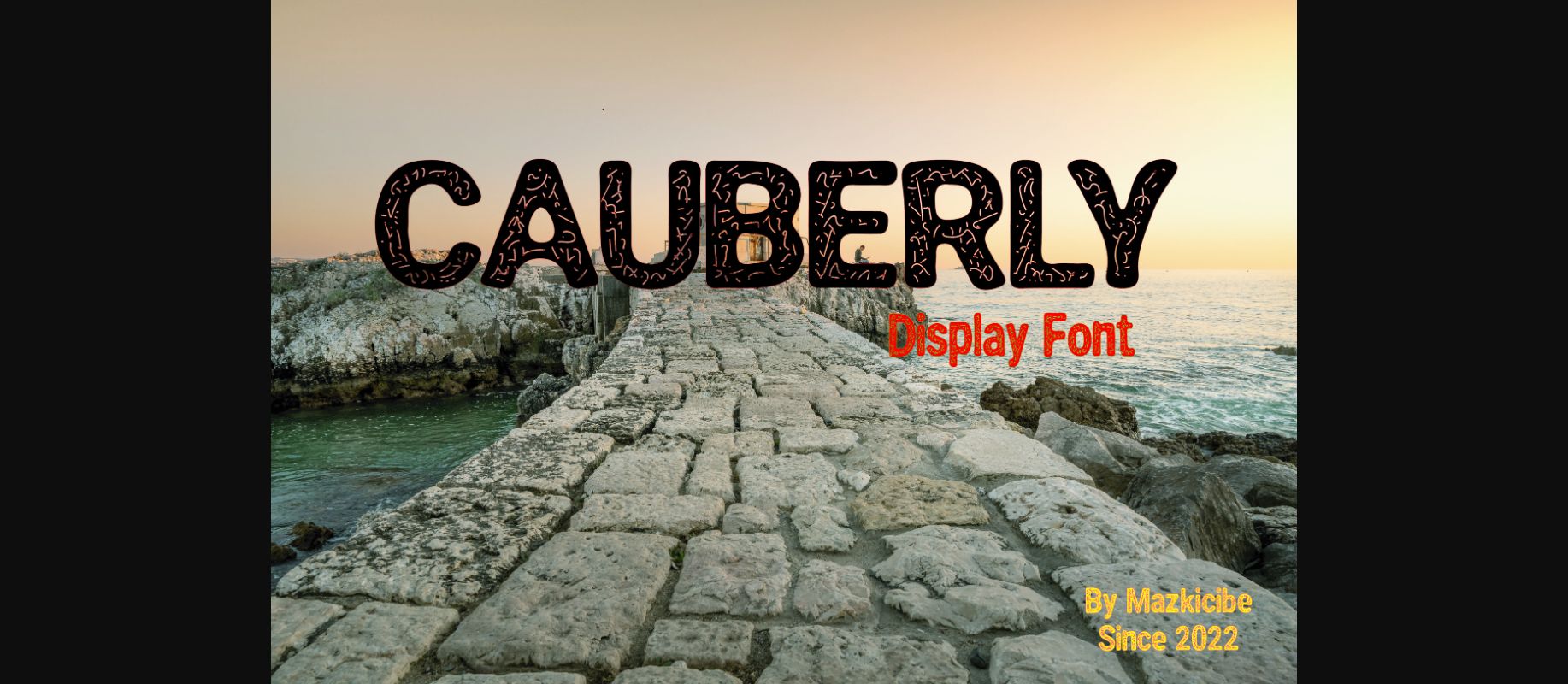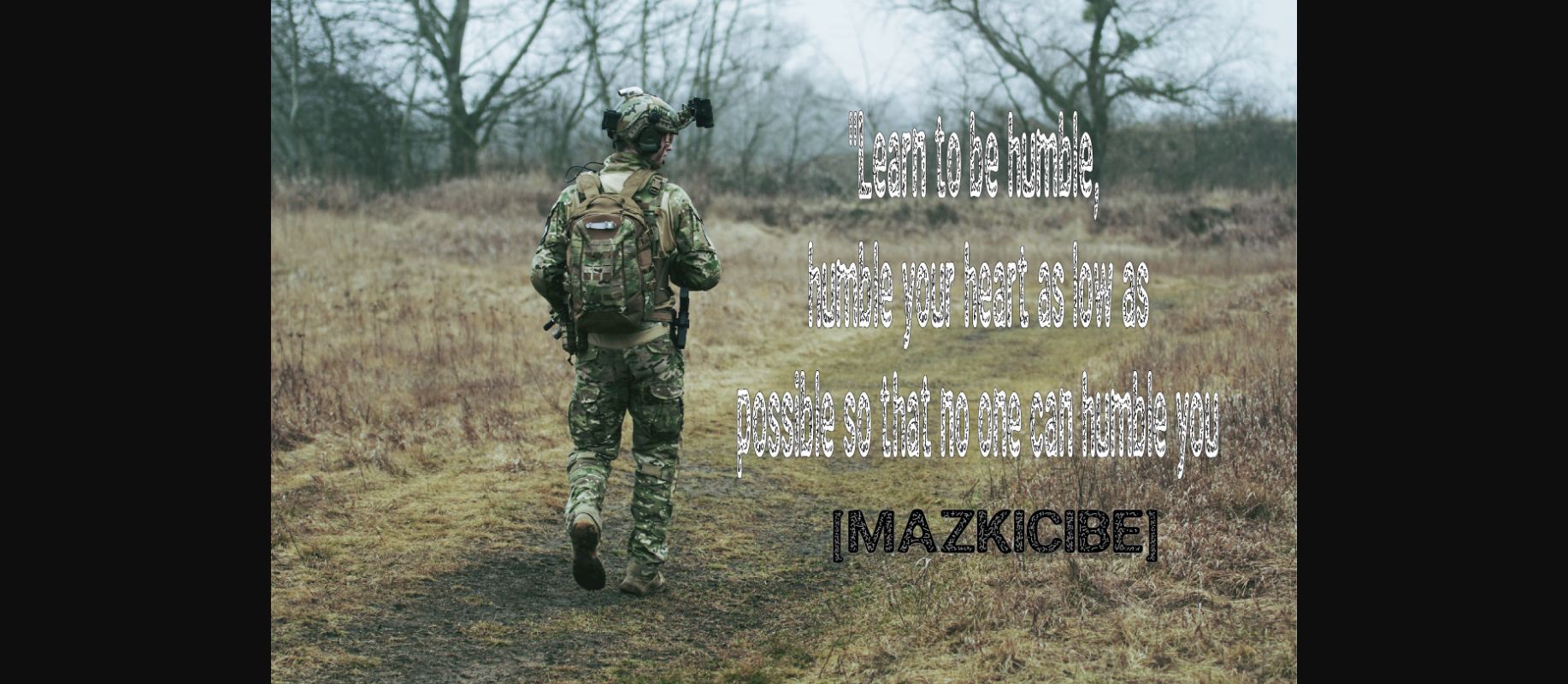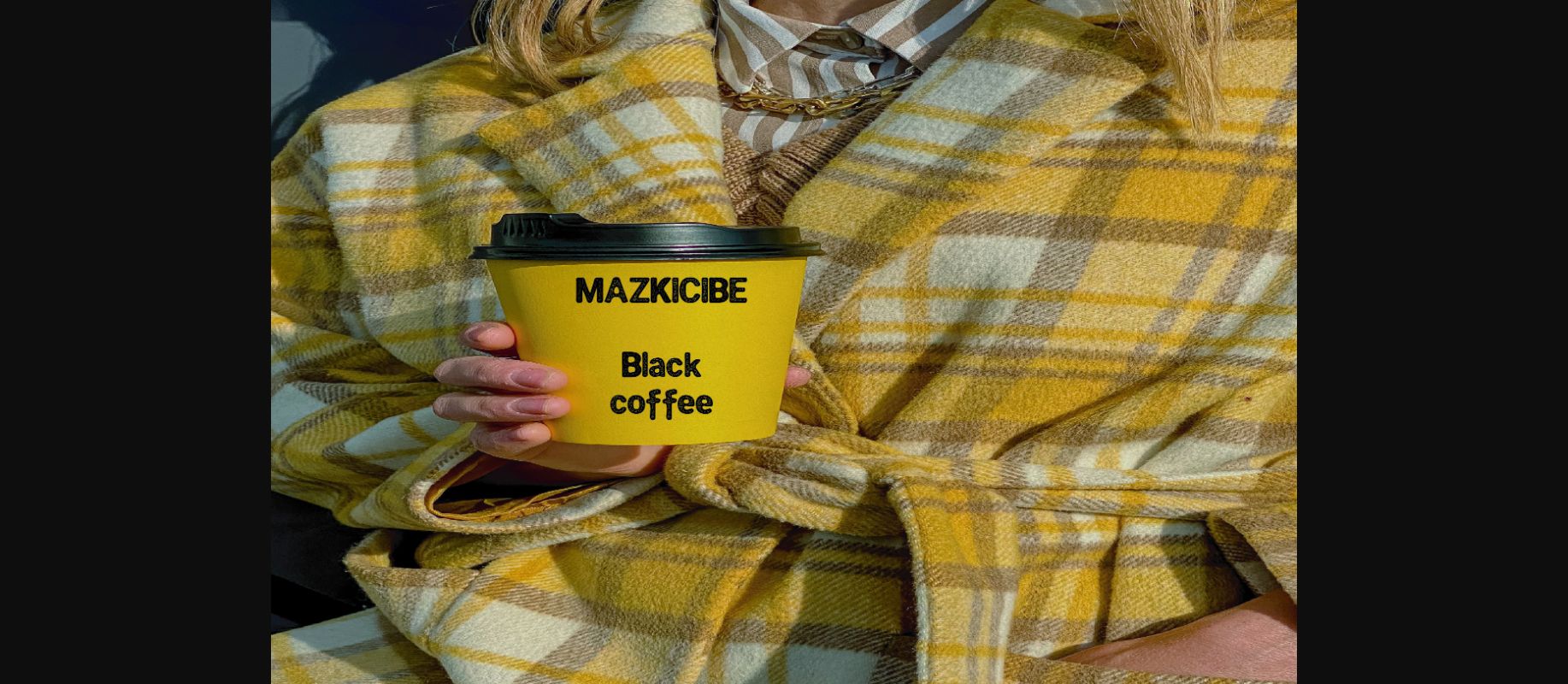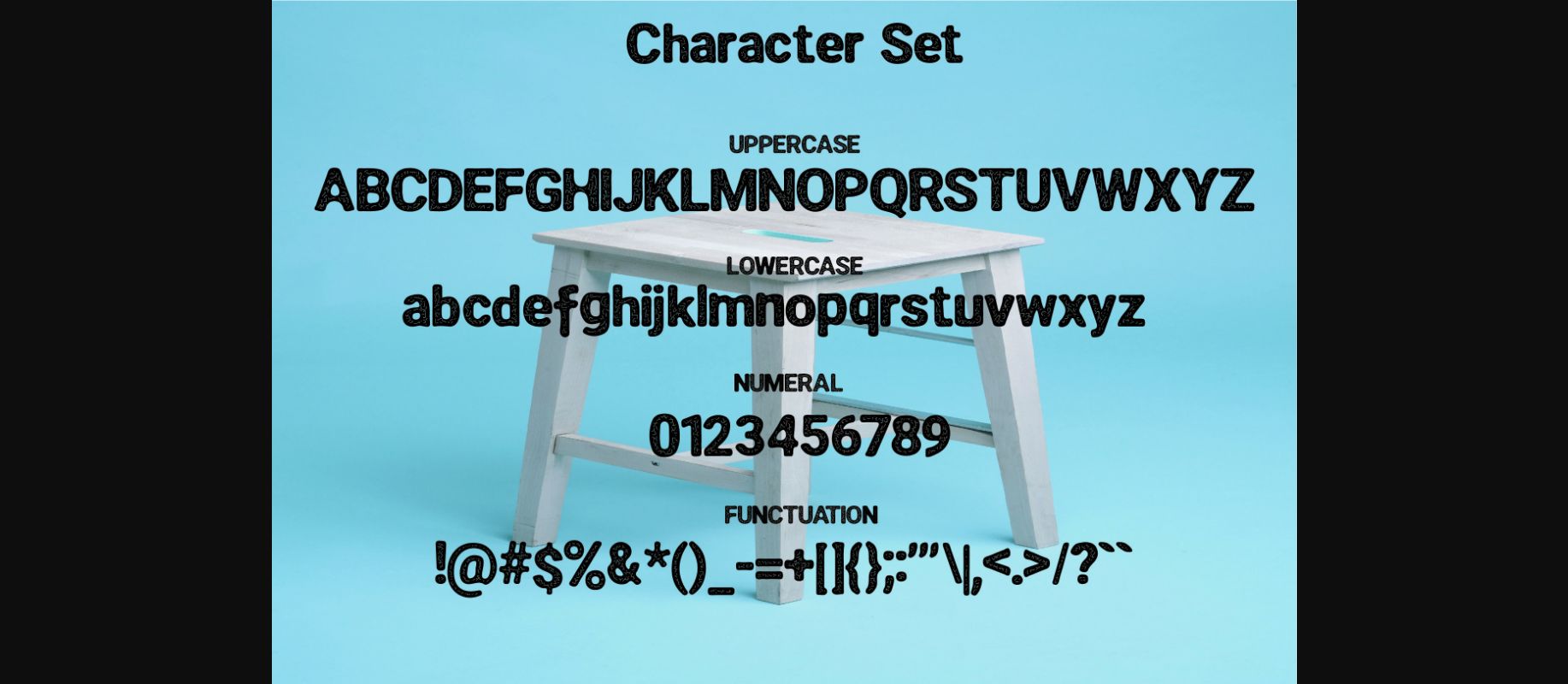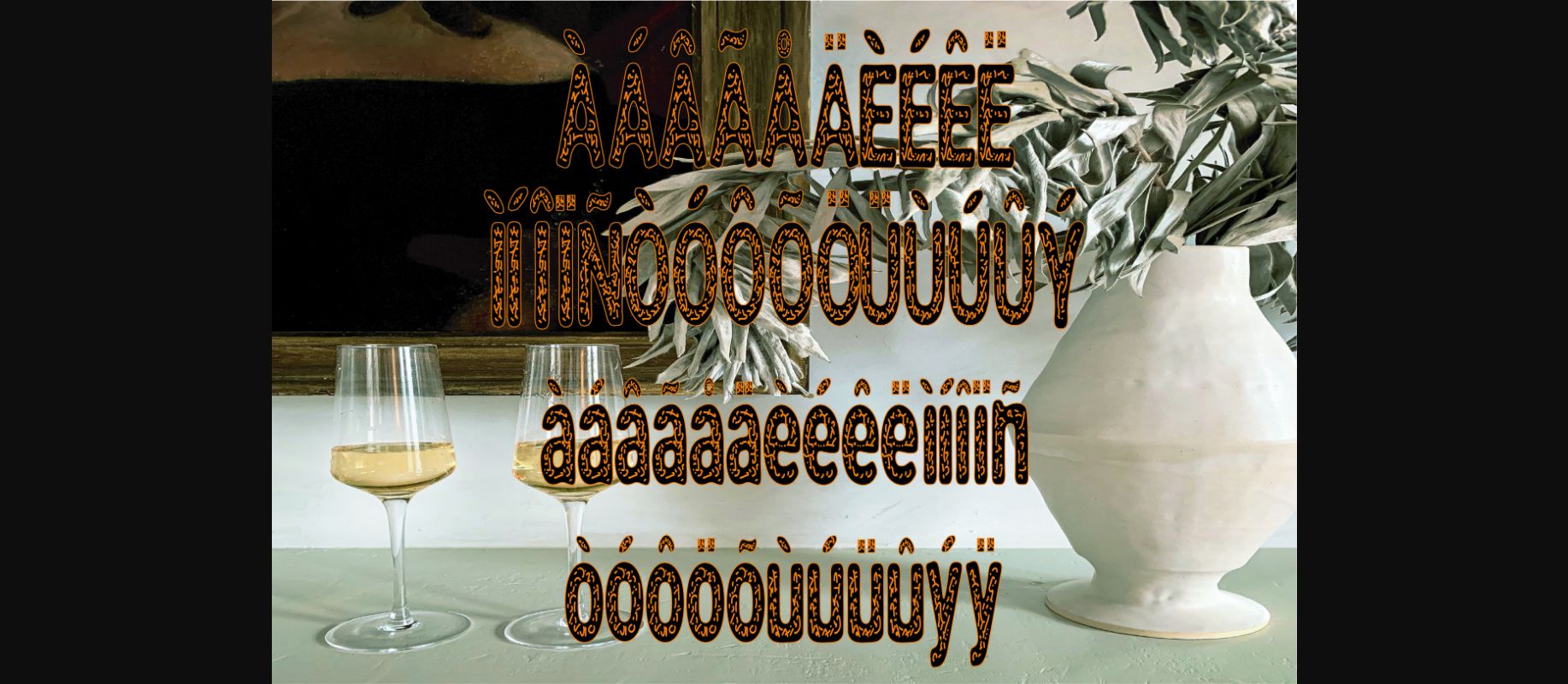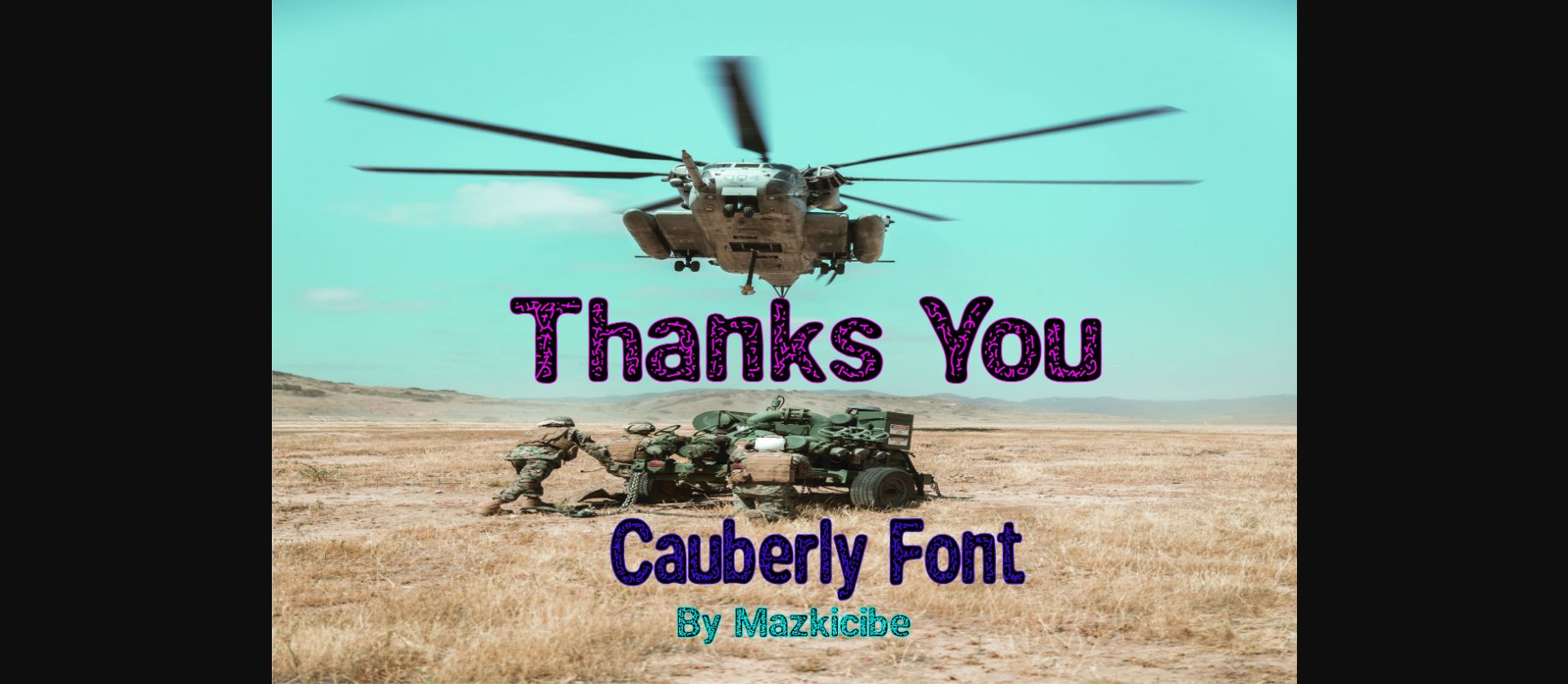
Cauberly Font
About Cauberly Font
Cauberly: Modern & Decorative font to make every word you make more eye-catching. Great for social media posts, branding, merchandise, posters, comics, display, etc.
CAUBERLY was inspired by the clothes of soldiers who are brave and able to hide without being detected.